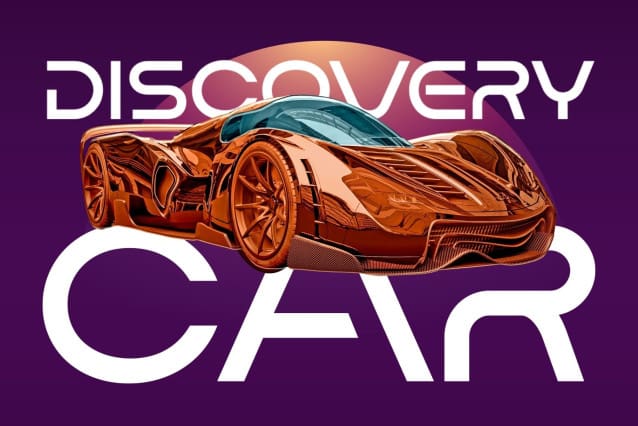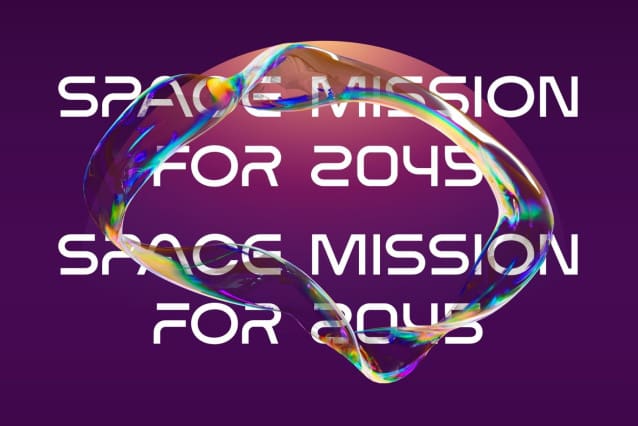
Ptg Futurizm Font
Ptg Futurizm Font – This typeface has a unique and attractive appearance. PTGFUTURIZM looks great when combined with solid character fonts.
For branding projects, logos, wedding designs, social media posts, advertisements, product packaging, product designs, labels, photography, watermarks, invitations, stationery, and anything requiring handwritten taste, PTGFUTURIZM is perfect.